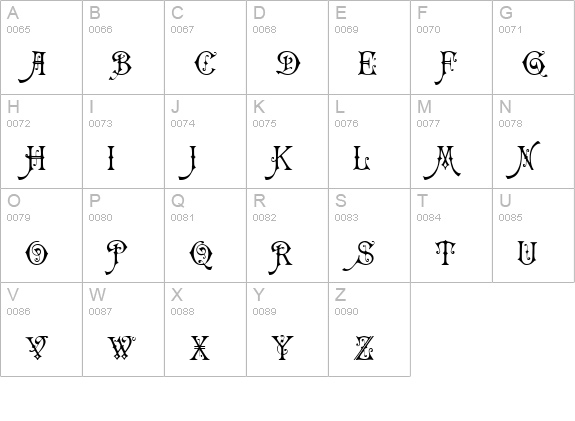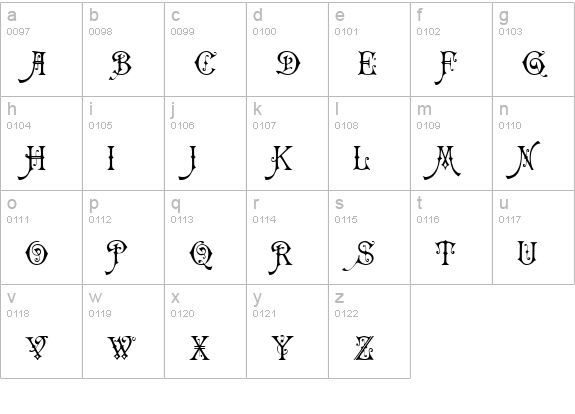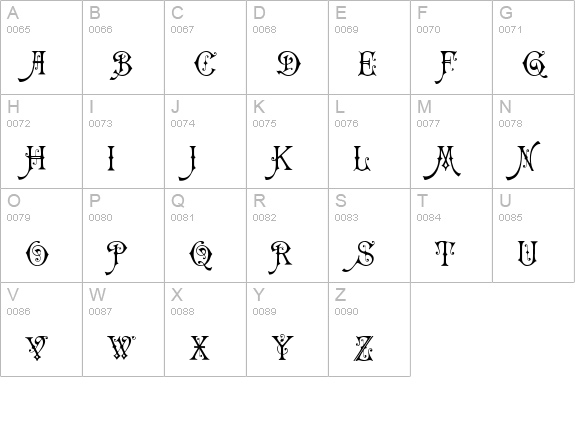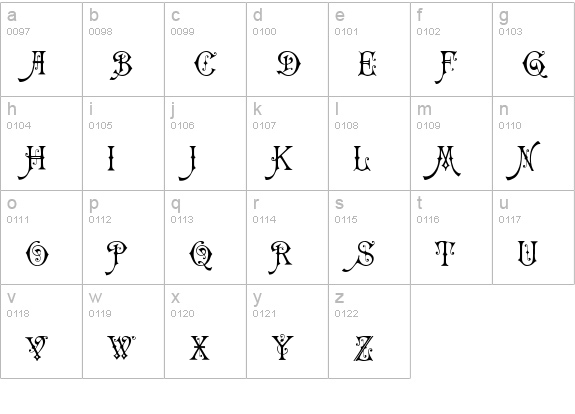
Carmencita font is a stunning typeface that seamlessly blends elegance with a touch of modernity. Its flowing lines and delicate curves exude a sense of sophistication, making it perfect for a wide range of design projects. Whether you're creating invitations, branding materials, or editorial layouts, Carmencita font will add a touch of refinement to your work. The best part? Carmencita font is available for free download at FontsMarket.com, allowing you to easily access this beautiful typeface and incorporate it into your designs without any cost. With its timeless appeal and versatile design, Carmencita font is sure to become a go-to choice for designers looking to elevate their projects with a touch of style and grace.